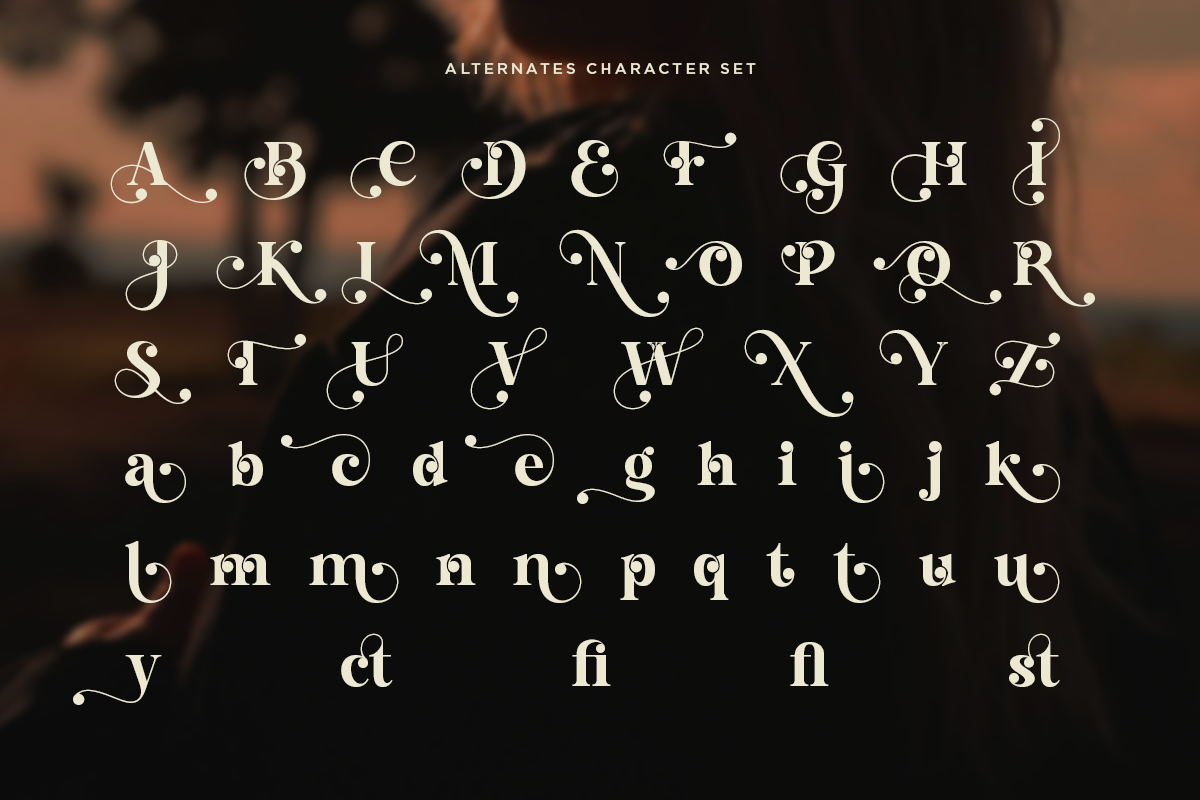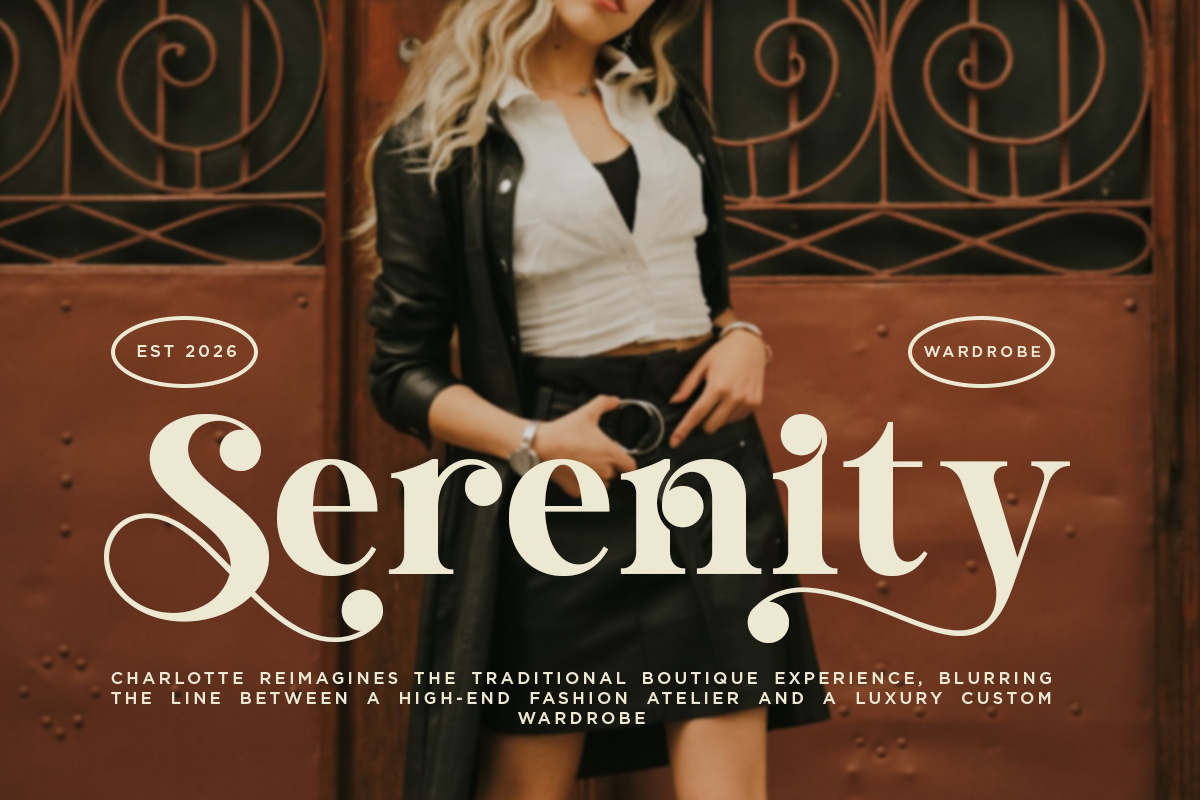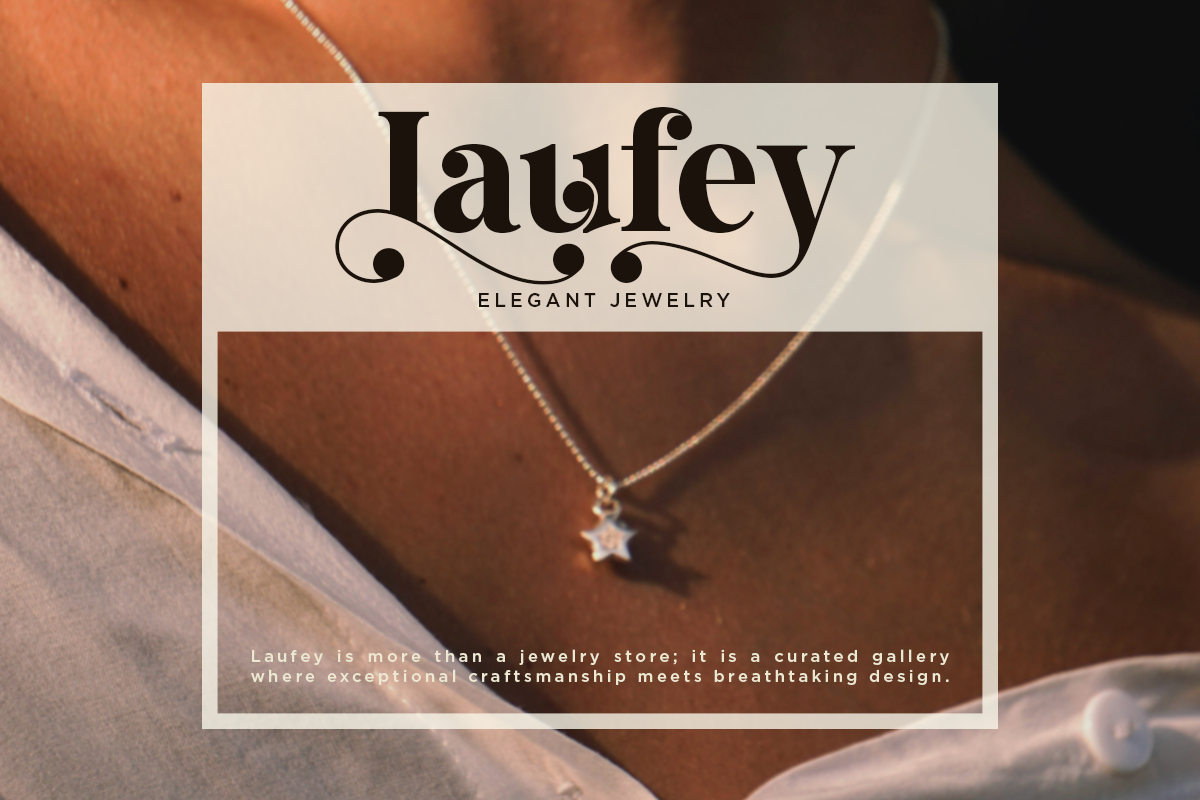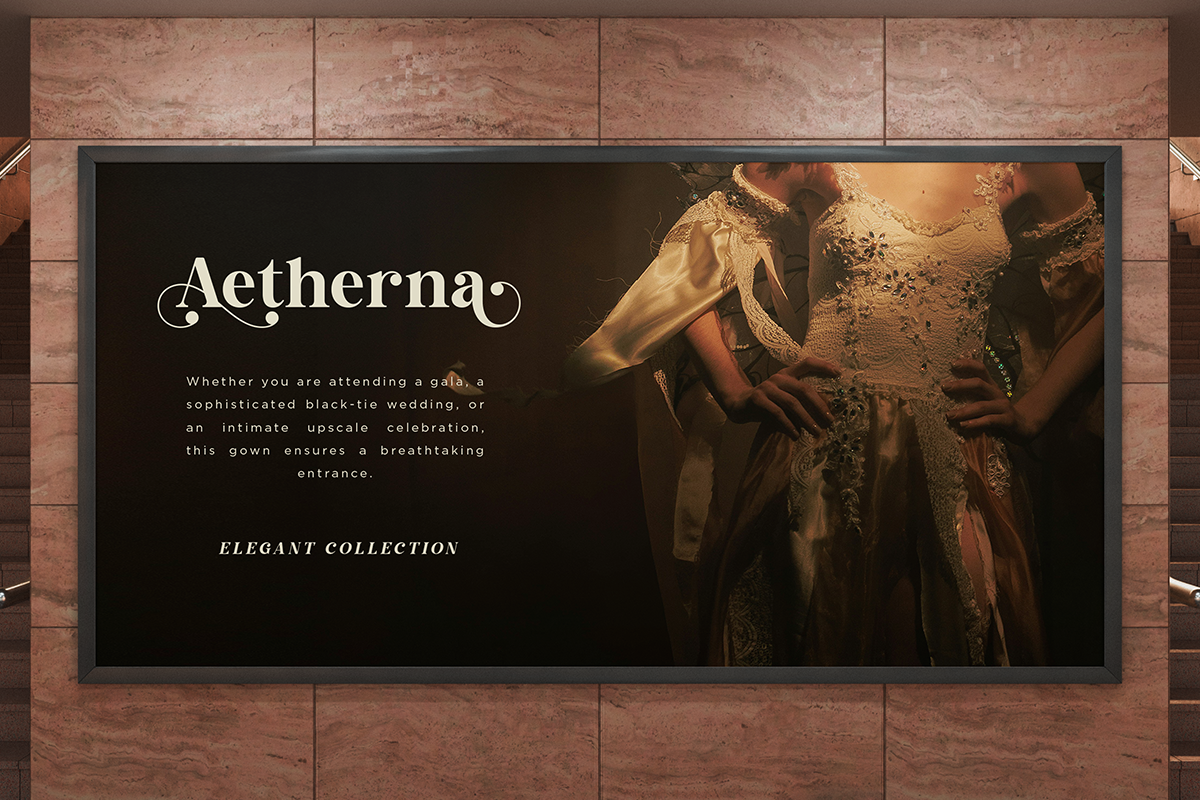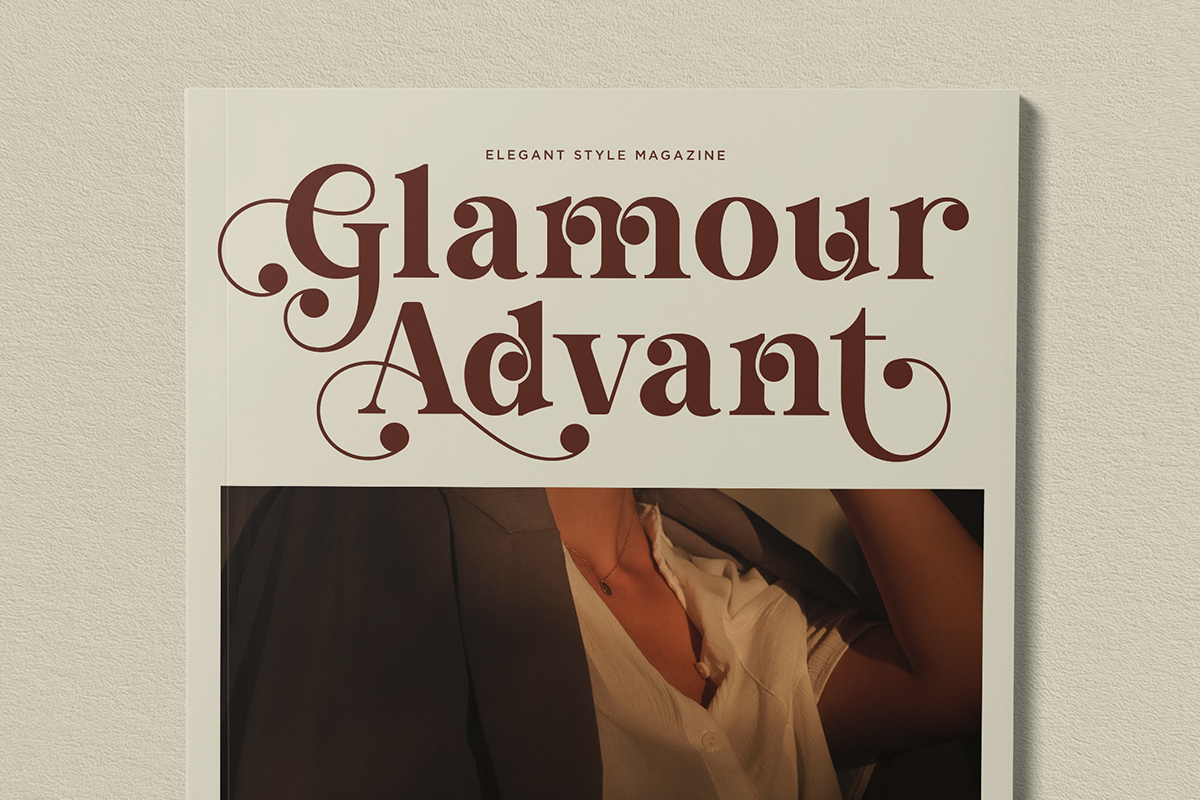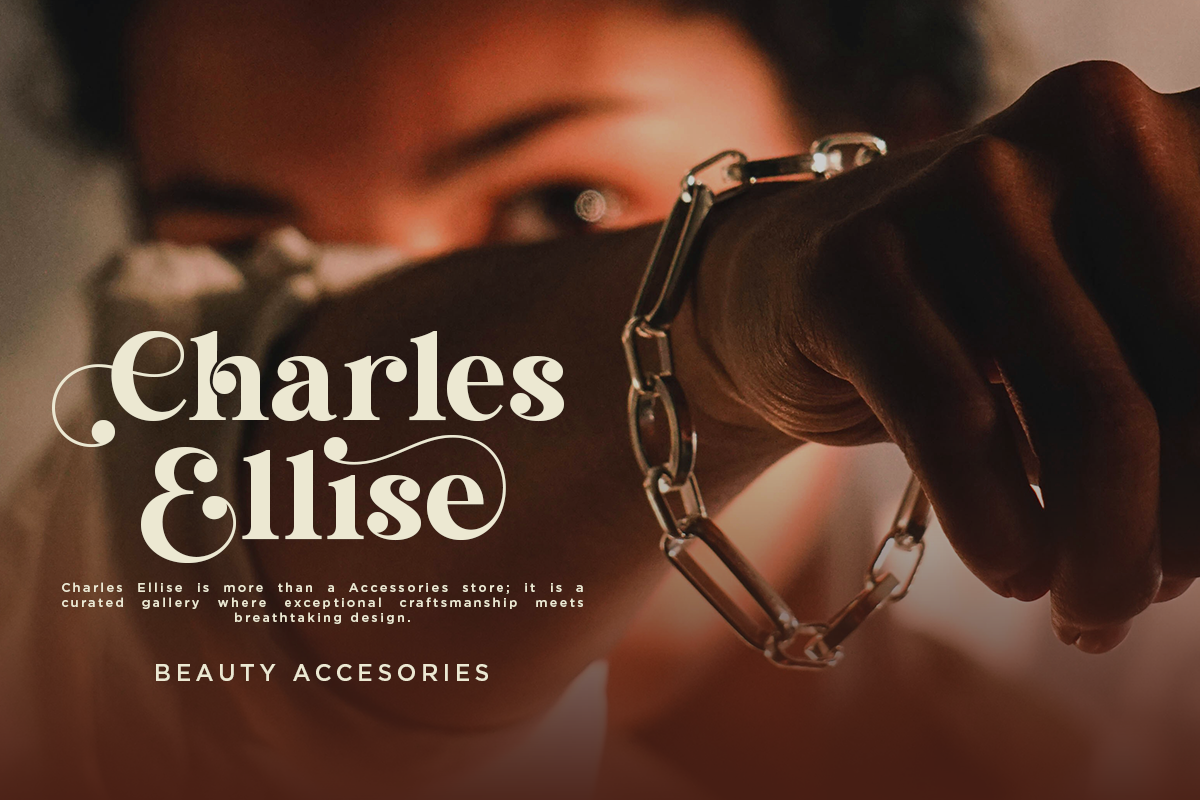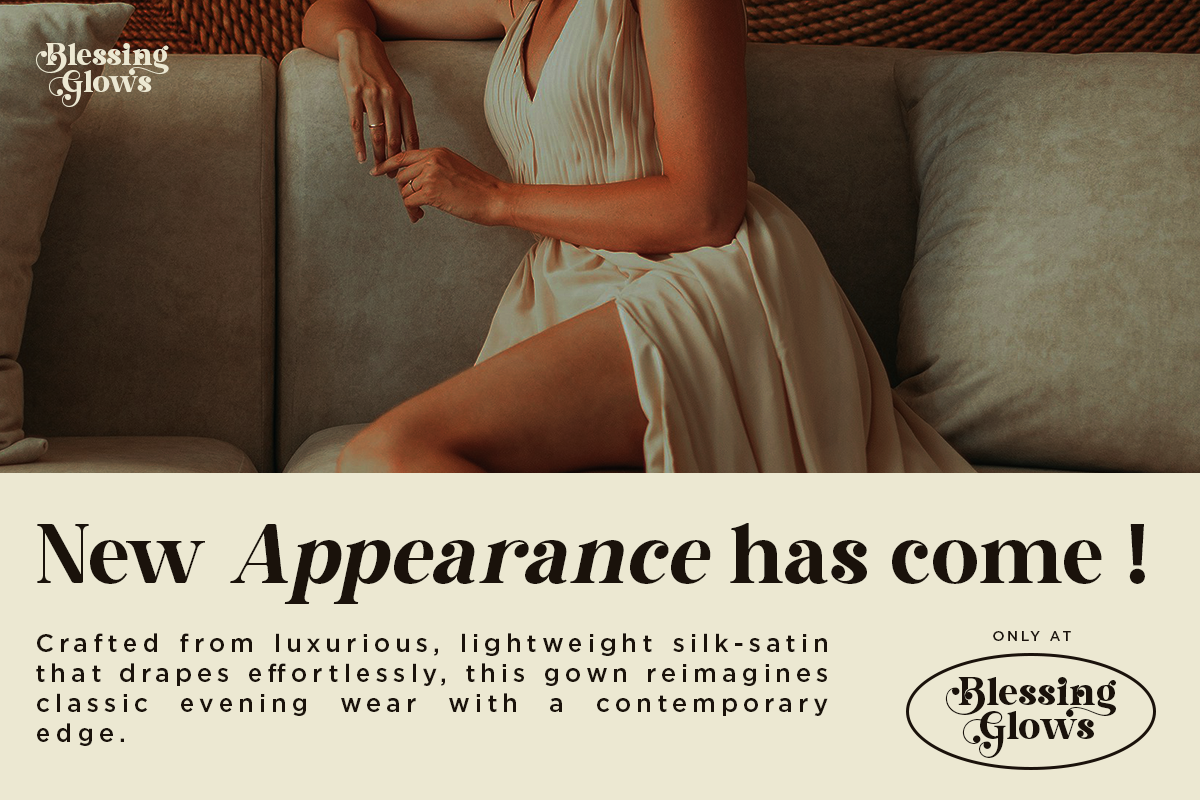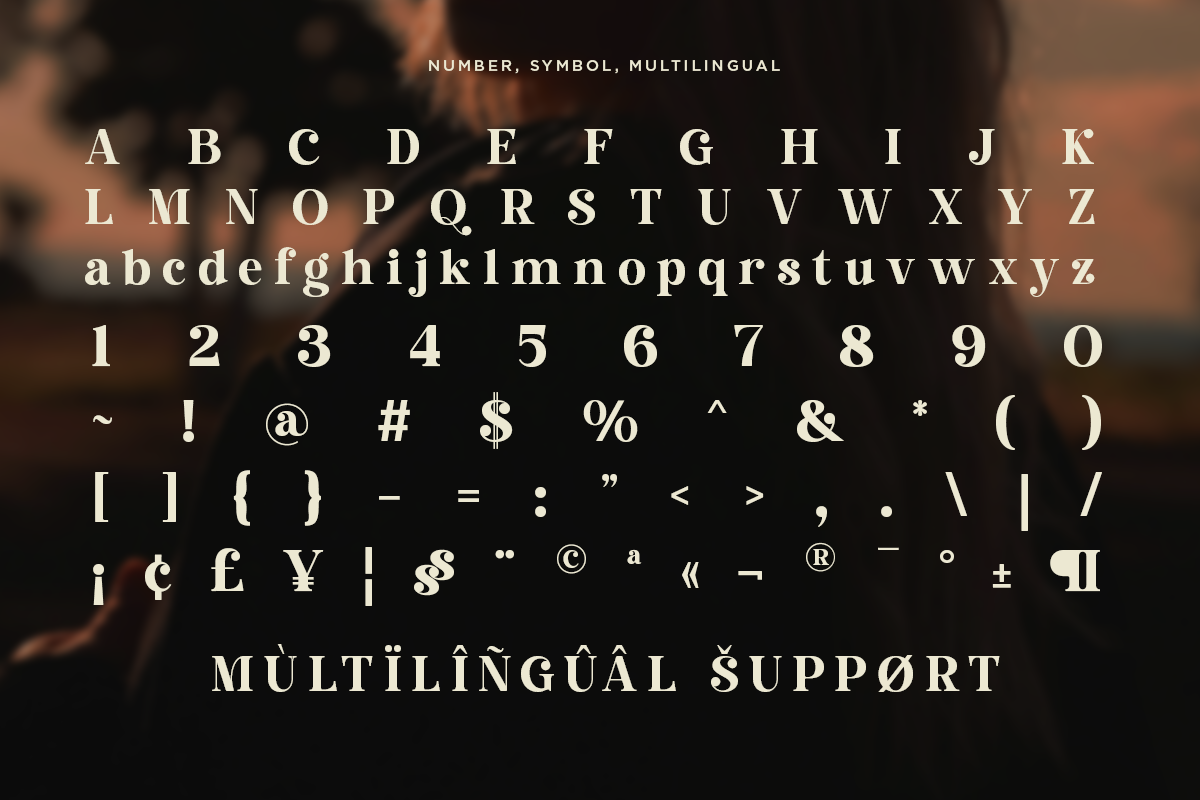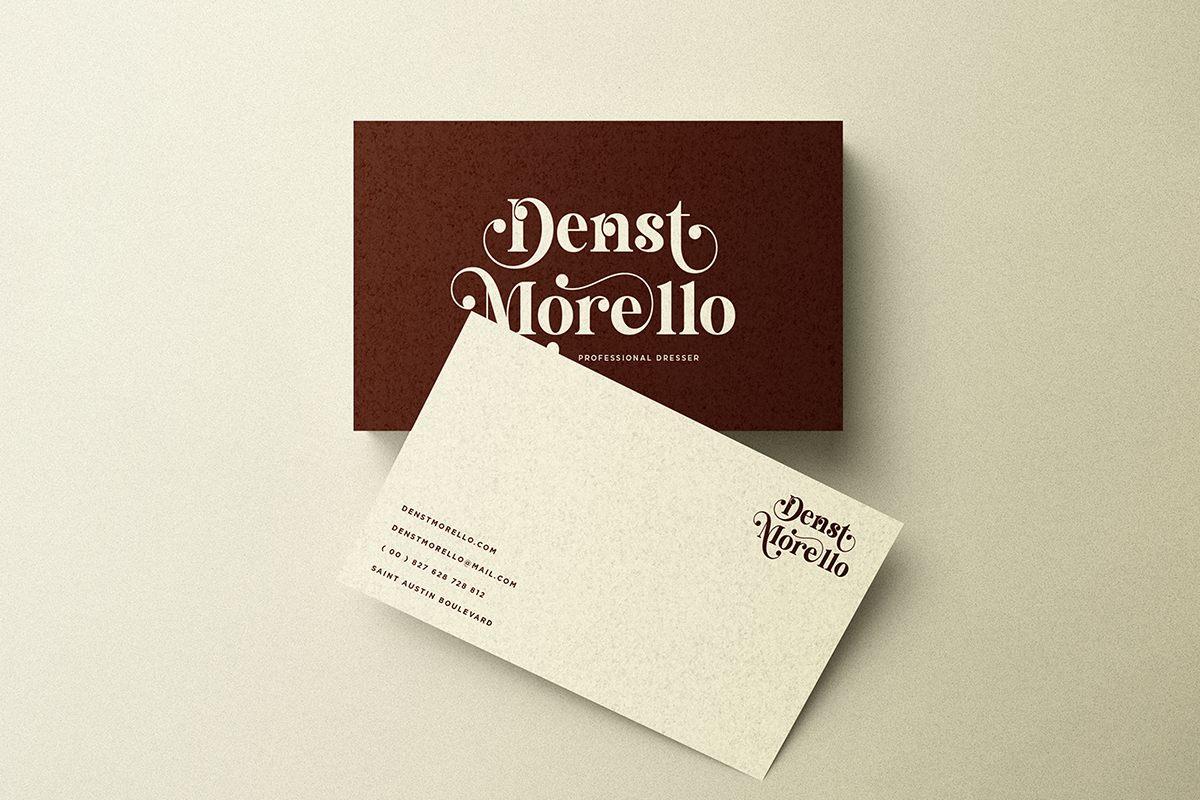
Saint Austin - Elegant Modern Serif
Saint Austin is a captivating, elegant modern font proudly presented by Nexaline Studio. Designed with a seamless blend of sophisticated serifs and flowing, artistic swashes, this typeface exudes luxury, high fashion, and grace. The stunning alternate characters and unique terminal dots give your typography a bespoke, high-end look that stands out effortlessly.
Gorgeous Alternates & Swashes Included (Alternates Available)
Smooth curves and clean contrast shapes